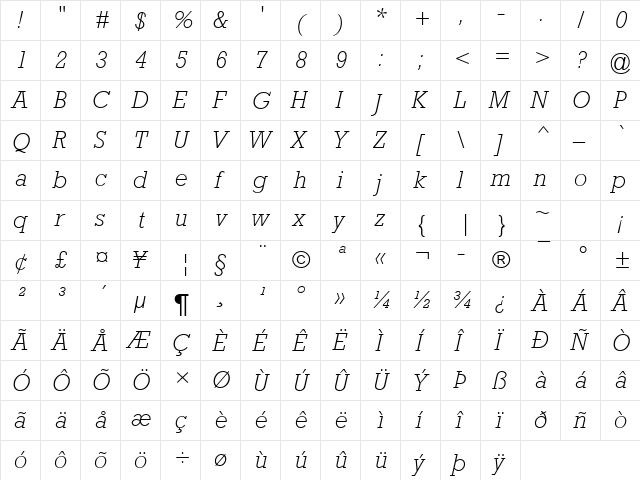
Rockwell Light Italic
Design Context for Rockwell Light Typeface
Rockwell Light takes a measured approach to typography — its balanced proportions and neutral character make it a reliable workhorse for both digital and print work. The dynamic lean of this cut emphasises speed and emphasis in any layout. The delicate stroke weight brings airiness and refinement to layouts.